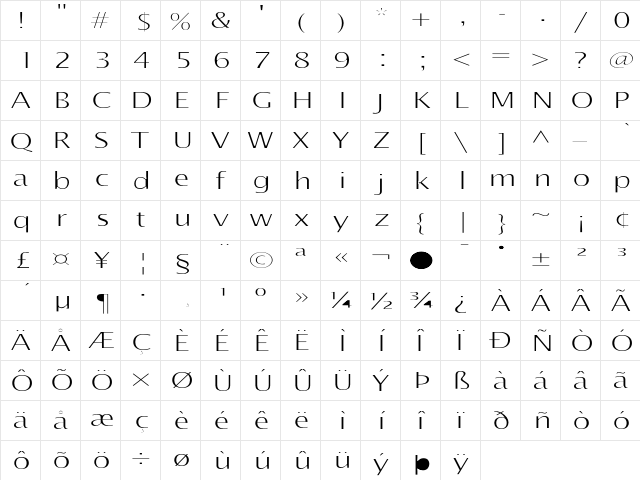
Intention Regular
Design Context for Intention Typeface
Intention takes a measured approach to typography — its balanced proportions and neutral character make it a reliable workhorse for both digital and print work.
Pro Tip: Pair Intention with a font of contrasting weight or personality to build a more expressive typographic hierarchy.